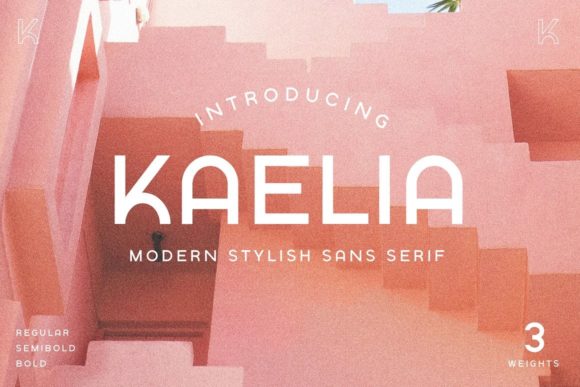
Behold Kaelia, a font family that sparks elegance and captivates hearts with its modern and stylish sans serif design. A creation of Creative Corner, this masterpiece is a testament to the transformative power of typography, ready to lend an air of sophistication to your every project.
Journey through a world of seamless curves and crisp lines, where words dance with grace and poise. Kaelia's repertoire includes a diverse range of weights and styles, ensuring that your creative expressions find the perfect match. From delicate whispers to bold proclamations, Kaelia adapts effortlessly to your every whim.
With a personality that radiates minimalism, Kaelia effortlessly enhances any creation, allowing your message to take center stage. Its clean and unadorned nature invites the reader's focus, ensuring that every word carries weight and significance. Whether you're crafting a stunning logo, an eye-catching poster, or a captivating website, Kaelia transforms the ordinary into the extraordinary.
Kaelia's versatility knows no bounds, extending its charm across a myriad of digital and print media. Unleash your creativity with boundless possibilities: craft breathtaking social media posts that demand attention, design business cards that leave a lasting impression, or create brochures that exude professionalism. Every application becomes an opportunity to showcase your unique style and leave an indelible mark.
For those seeking a font that transcends trends and stands the test of time, Kaelia is your muse. Its timeless design ensures that your creations remain relevant and impactful, defying the fleeting nature of fads. Stay ahead of the curve and leave an enduring legacy with Kaelia as your trusted companion.